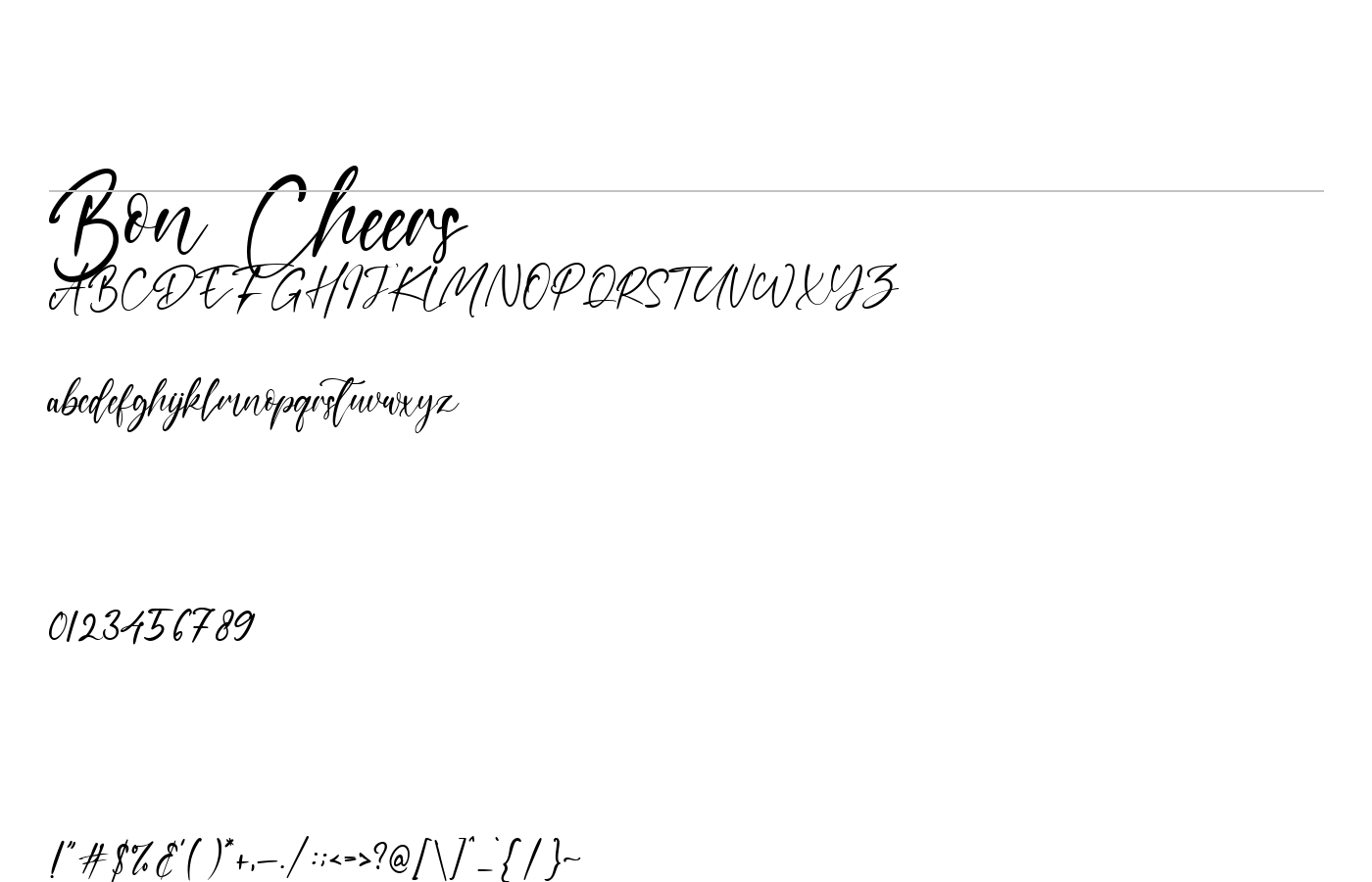
Bon Cheers is an elegant script font featuring fluid, handwritten letterforms with a delicate, smooth stroke that exudes a sophisticated and personal touch. Ideal for invitations, branding, or fashion projects, it brings a sense of charm and luxury while maintaining readability in both uppercase and lowercase characters. This stylish font works beautifully in designs that seek a modern yet warm and inviting feel.
Bon Cheers Font
About Bon Cheers Font